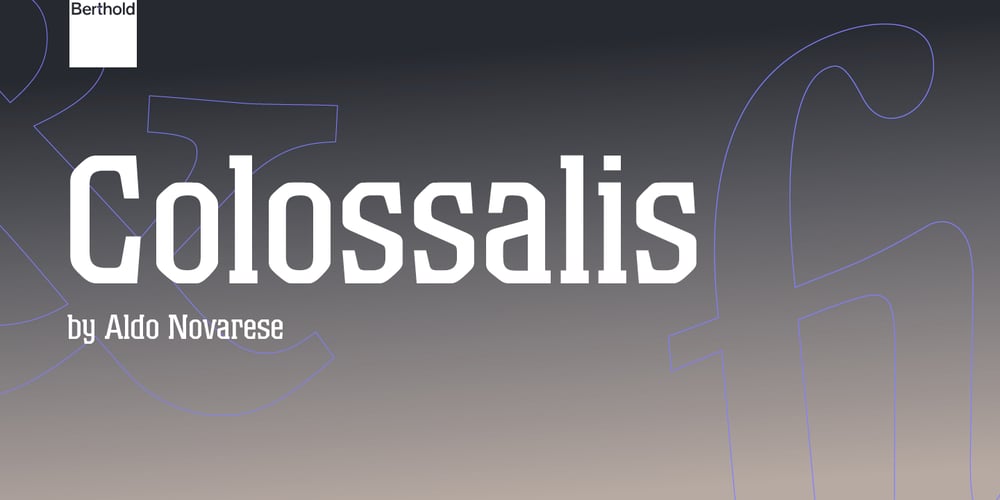
Colossalis
Colossalis font
Colossalis Font Family was designed by Aldo Novarese and published by Berthold. Colossalis contains 4 styles and family package options. H. Berthold released this Aldo Novarese design in 1984. Colossalis has slightly condensed character widths with flattened outer contours. Novarese designed this slab serif with a striking bold look, making it very useful for attention-grabbing headlines and advertising.